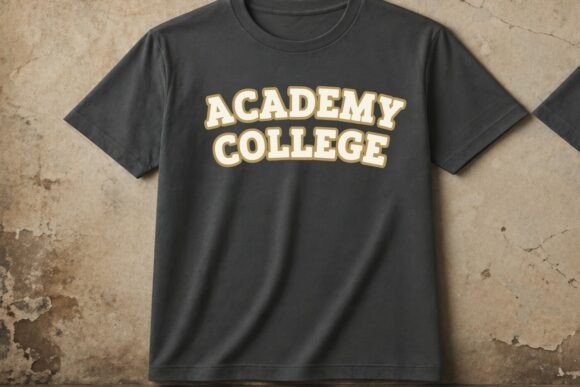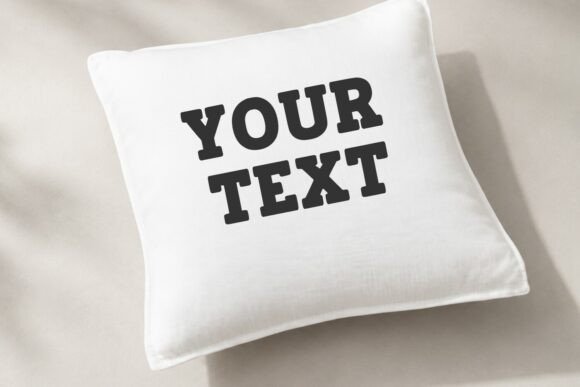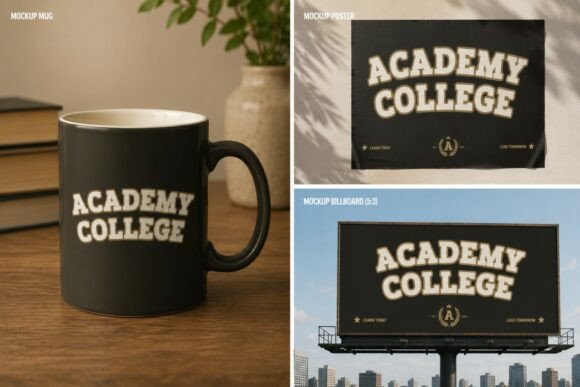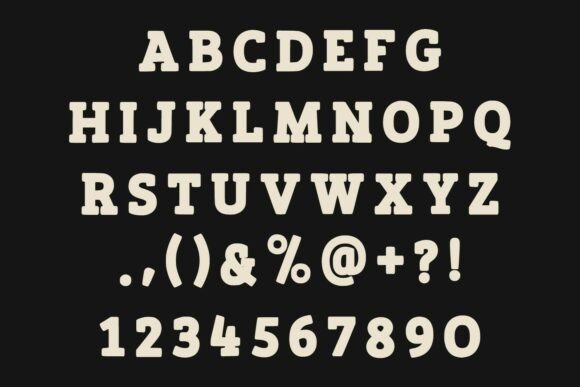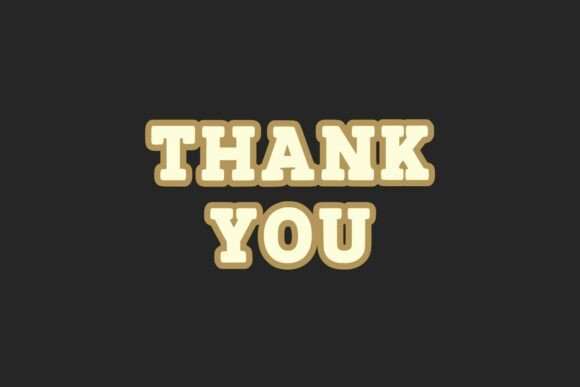
Introducing Academy College Font: The Ultimate Choice for Bold and Stylish Designs
Are you looking for a font that exudes confidence, nostalgia, and a touch of vintage charm? Look no further than Academy College Font, a bold and stylish slab serif font inspired by classic college lettering, varsity aesthetics, and vintage sports typography. In this article, we’ll dive into the world of Academy College Font, exploring its features, benefits, and uses, and why it’s the perfect choice for designers and crafters alike.
The Inspiration Behind Academy College Font
Academy College Font is a carefully crafted font that draws inspiration from the classic typography of colleges and universities. Its bold and sturdy design is reminiscent of vintage sports teams, varsity letters, and retro-themed posters. The font’s creator aimed to capture the essence of a bygone era, infusing it with a sense of nostalgia and timelessness.
Key Features of Academy College Font
So, what makes Academy College Font stand out from the rest? Here are some of its key features:
- Thick Curves and Strong Outlines: Academy College Font boasts thick, smooth curves and strong outlines that give it a sturdy and confident appearance.
- Retro Character Shapes: The font’s character shapes are inspired by vintage typography, featuring classic letterforms with a nostalgic twist.
- Bold and Stylish: Academy College Font is a bold and stylish font that’s perfect for making a statement.
Uses for Academy College Font
Academy College Font is an incredibly versatile font that can be used in a wide range of design projects, including:
- Branding: Use Academy College Font to create bold and eye-catching logos that exude confidence and style.
- T-Shirt Designs: The font’s bold and stylish design makes it perfect for t-shirt designs, from sports teams to retro-themed apparel.
- Logos and Icons: Create memorable logos and icons with Academy College Font’s unique character shapes and bold outlines.
- Posters and Flyers: Use the font to create eye-catching posters and flyers that grab attention and evoke a sense of nostalgia.
- Sports Graphics: Academy College Font is a natural fit for sports graphics, from team logos to jersey designs.
- Merchandise and Packaging: The font’s bold and stylish design makes it perfect for merchandise and packaging, from product labels to gift wrapping.
- Social Media: Use Academy College Font to create engaging social media graphics that stand out from the crowd.
- Retro-Themed Projects: The font’s vintage charm makes it perfect for retro-themed projects, from graphic designs to craft projects.
Why Choose Academy College Font?
So, why should you choose Academy College Font for your design projects? Here are just a few reasons:
- Timeless Collegiate Style: Academy College Font features a timeless collegiate style that’s perfect for creating designs that stand the test of time.
- Bold Vintage Energy: The font’s bold and stylish design delivers a confident and nostalgic look that’s perfect for making a statement.
- Authentic Retro Charm: Academy College Font’s vintage charm is authentic and captivating, evoking a sense of nostalgia and classic style.
In conclusion, Academy College Font is a bold and stylish slab serif font that’s perfect for designers and crafters looking to add a touch of vintage charm to their designs. With its thick curves, strong outlines, and retro character shapes, this font delivers a confident and nostalgic look that’s perfect for a wide range of design projects. Whether you’re creating branding materials, t-shirt designs, logos, posters, or social media graphics, Academy College Font is the perfect choice. So why wait? Download Academy College Font today and start creating designs that stand out with bold vintage energy and authentic retro charm!